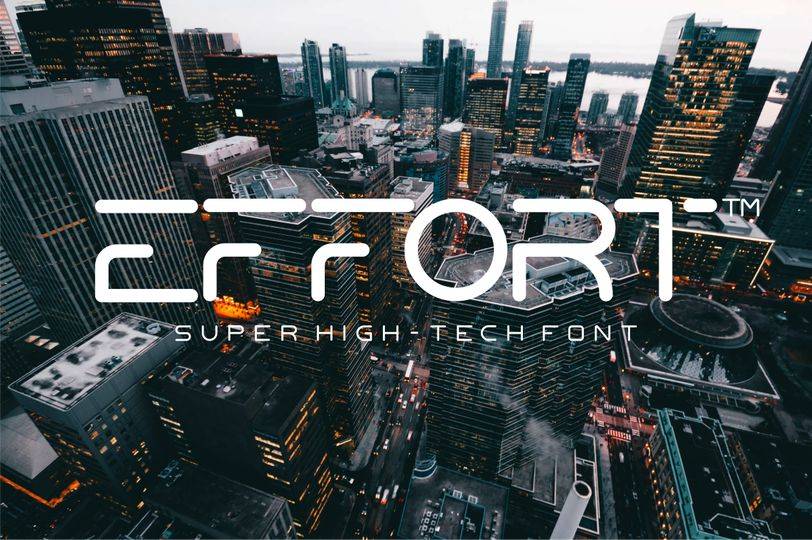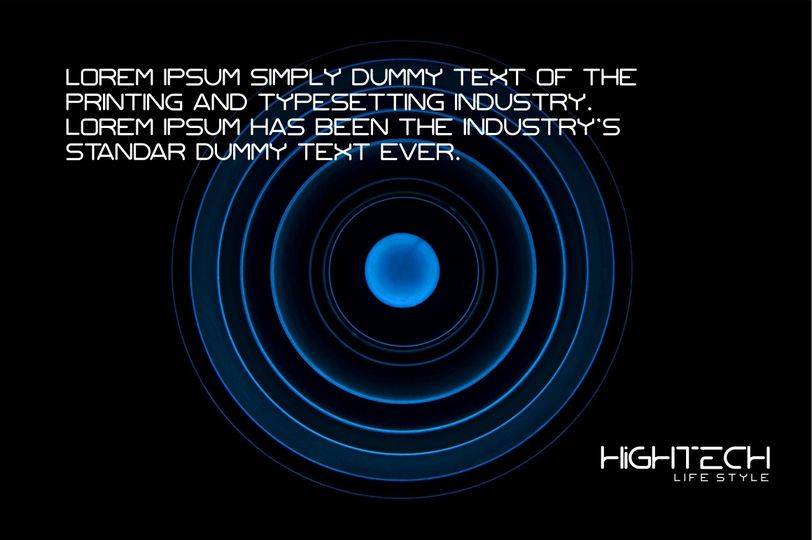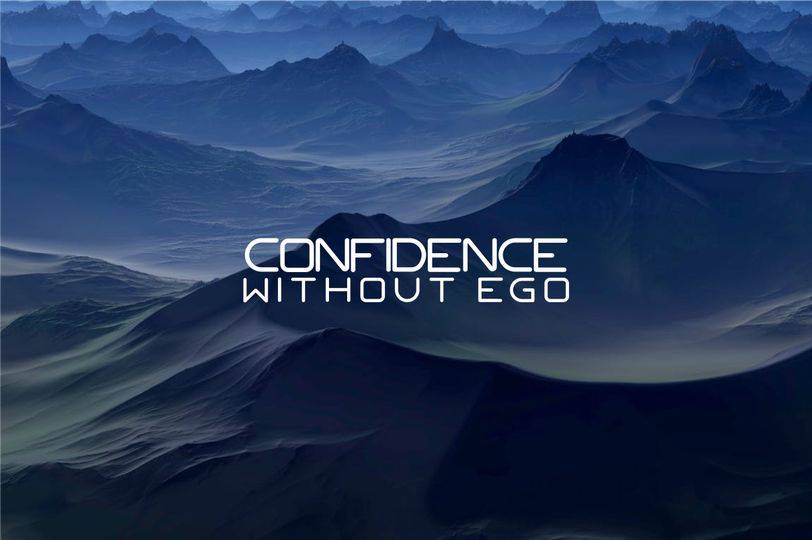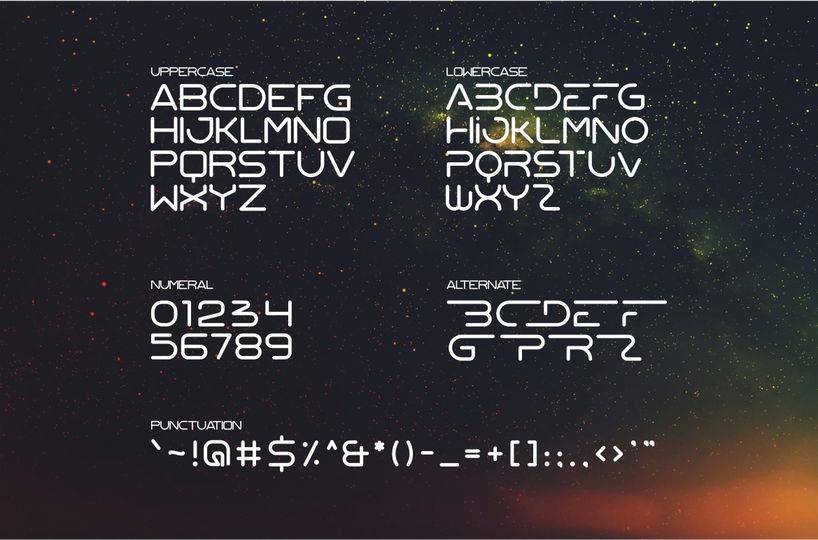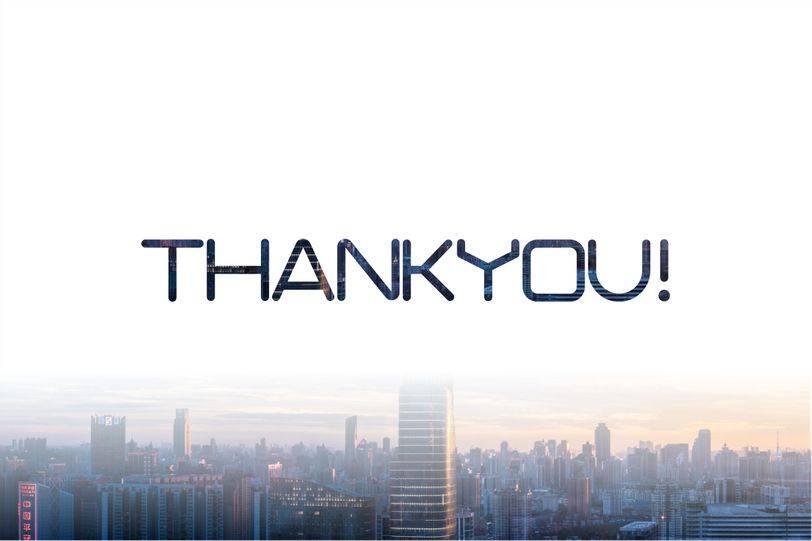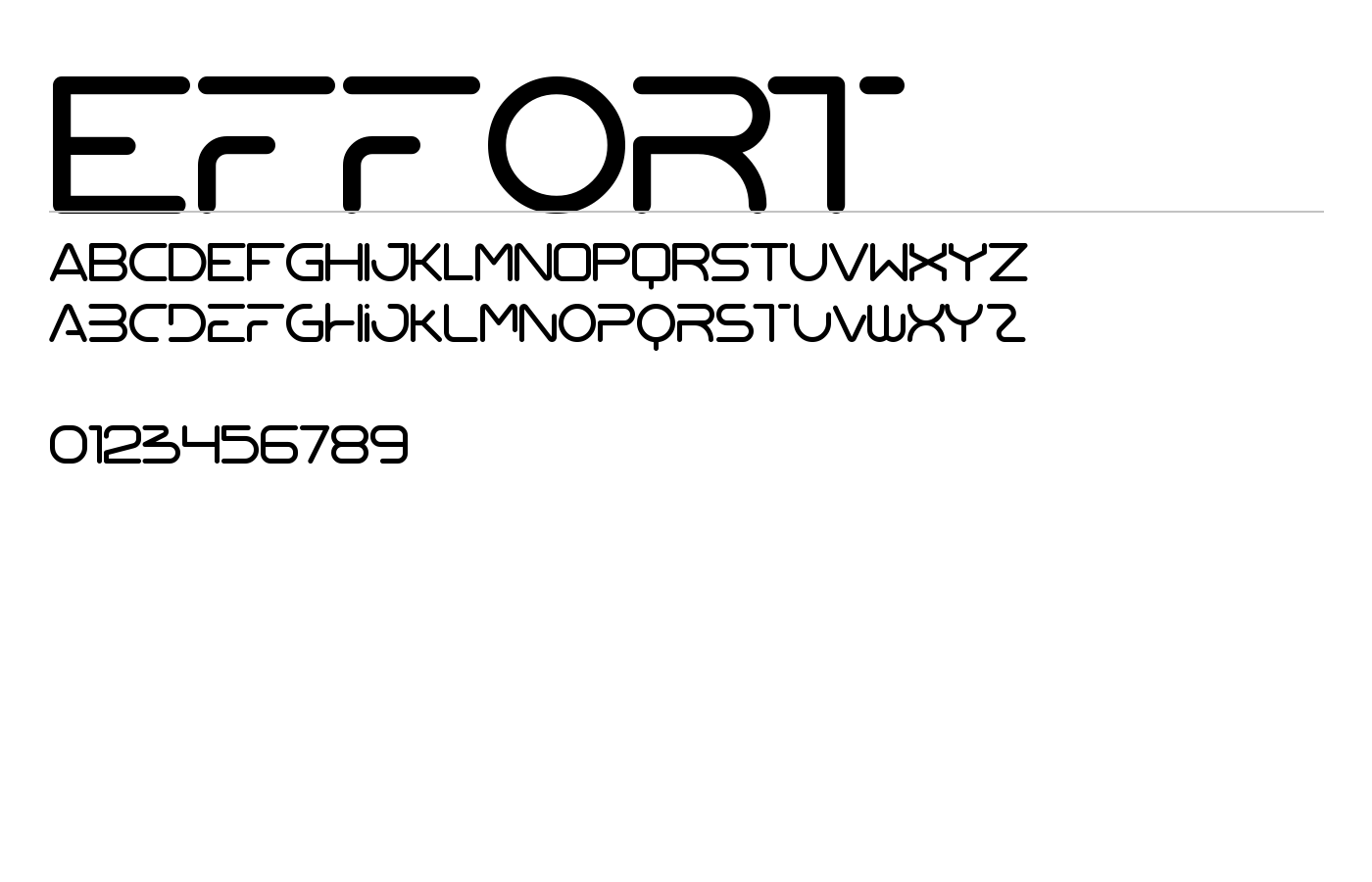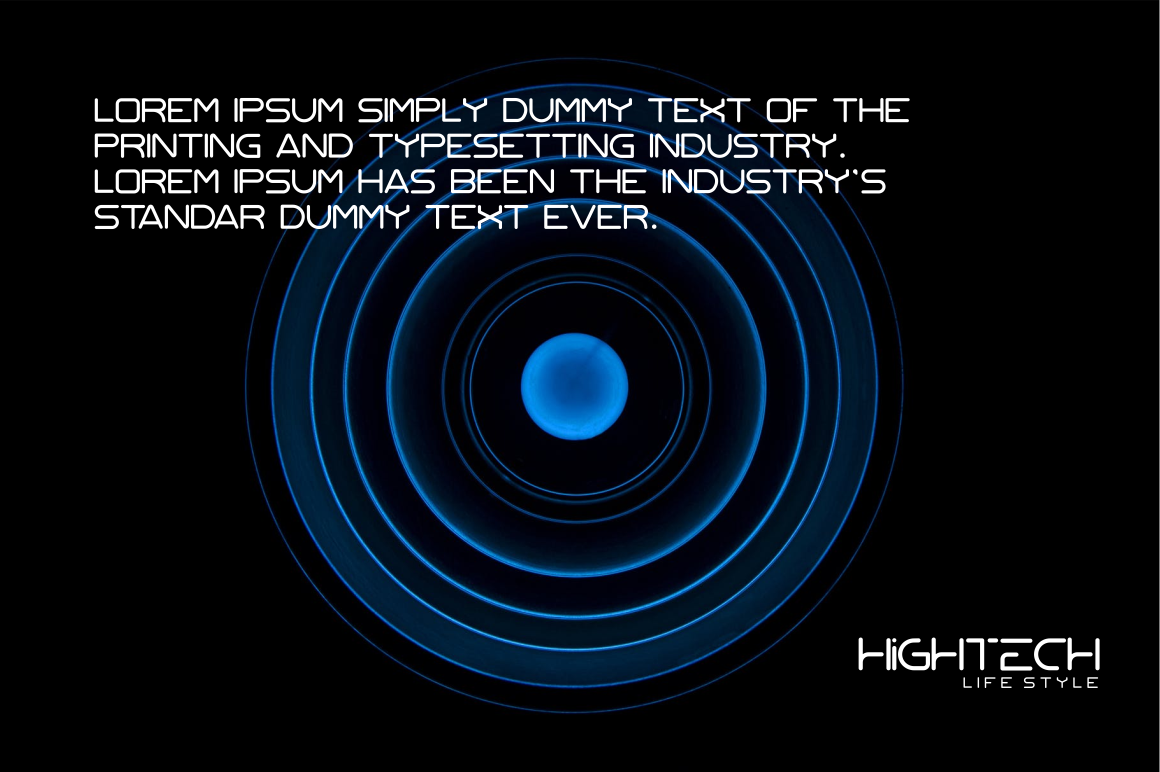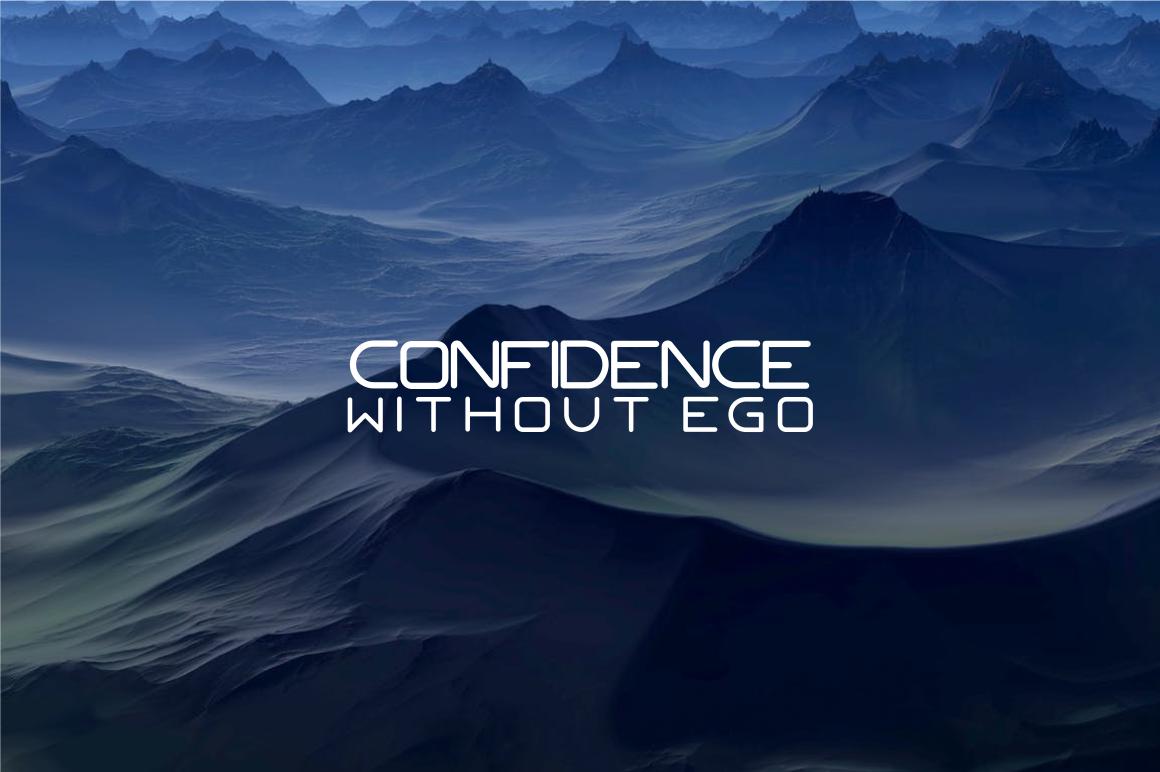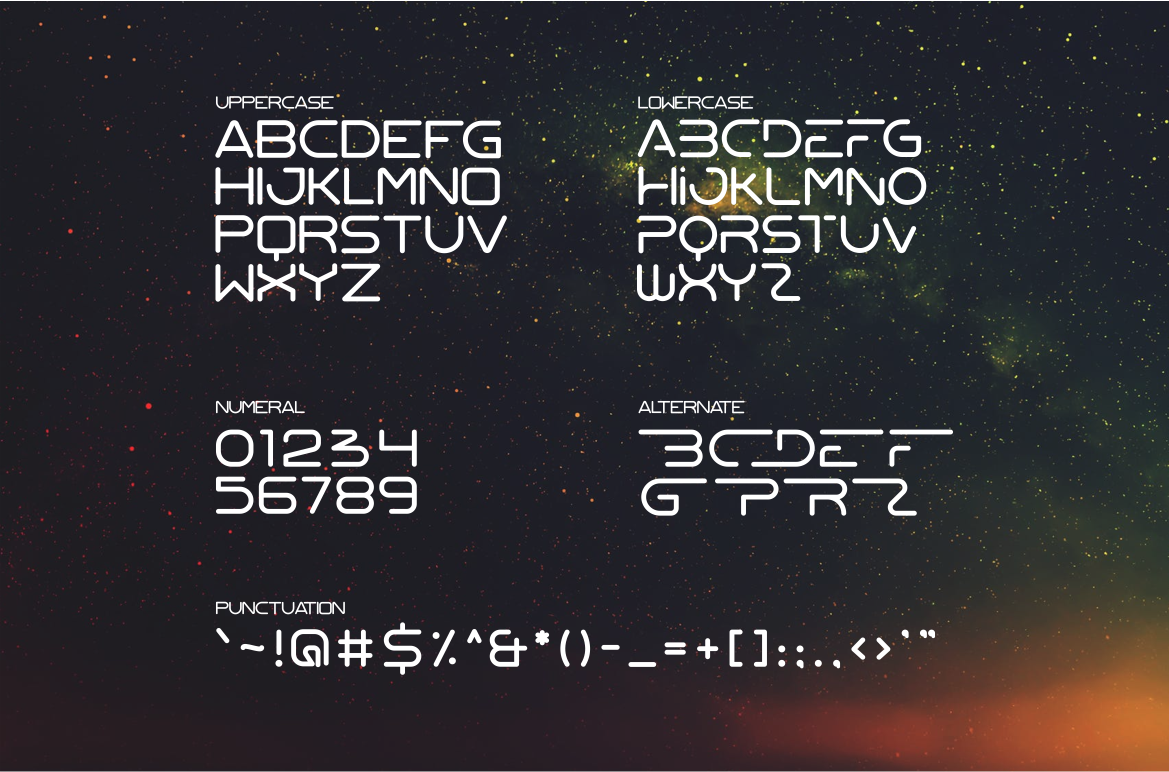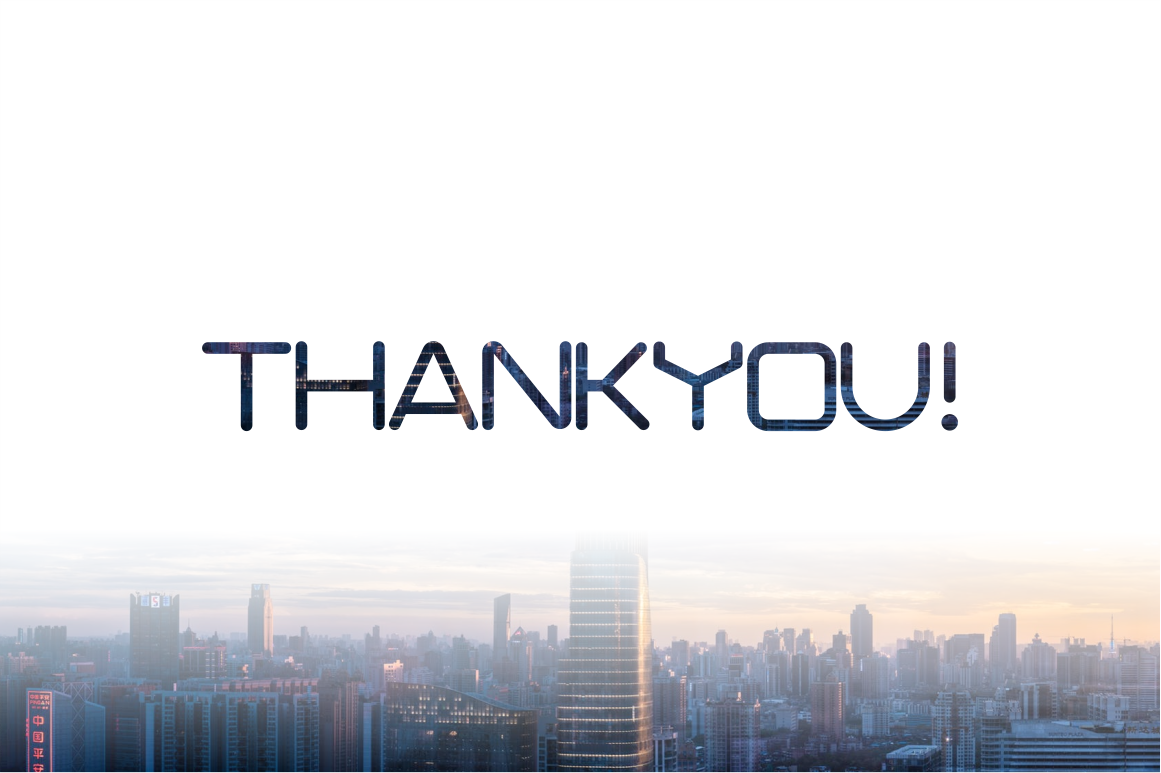
Effort is a sleek, modern sans serif font with a futuristic and geometric feel, characterized by rounded corners and consistent stroke weight that lend it a clean, tech-inspired look. Its unique letterforms and open, airy spacing make it ideal for use in contemporary branding, digital interfaces, and display headlines where a modern, innovative personality is desired. This font works well in contexts where clarity meets cutting-edge style, adding a distinctive, forward-thinking touch.
Effort
About Effort
| Font family | Effort |
| Designer | holis majid |